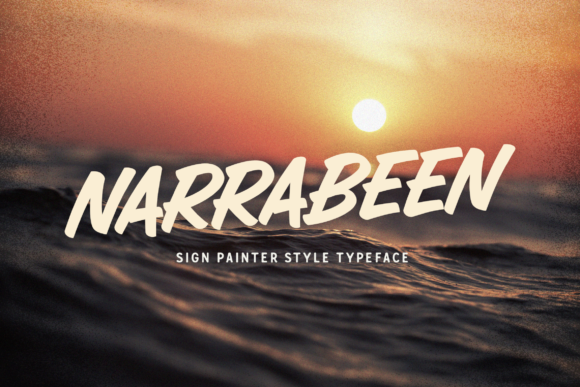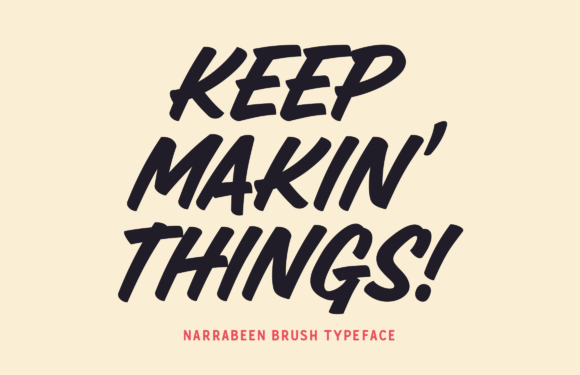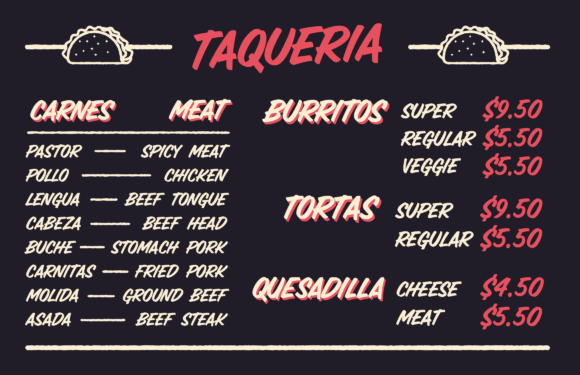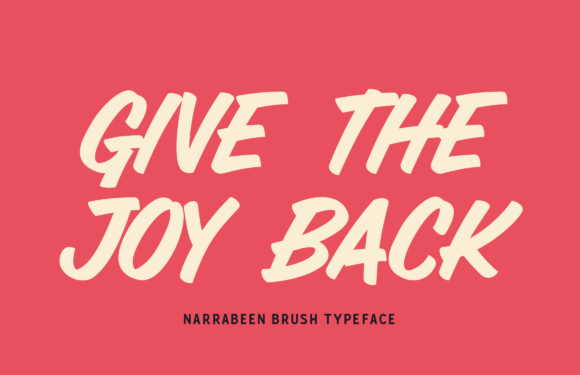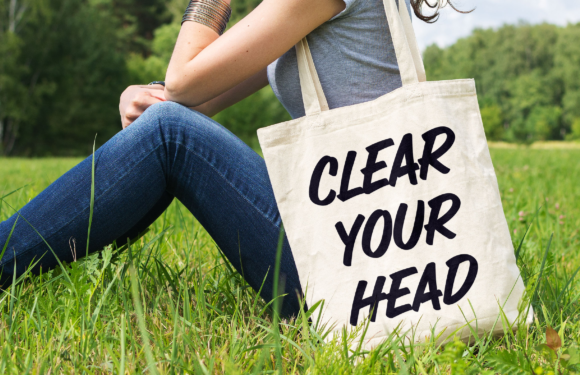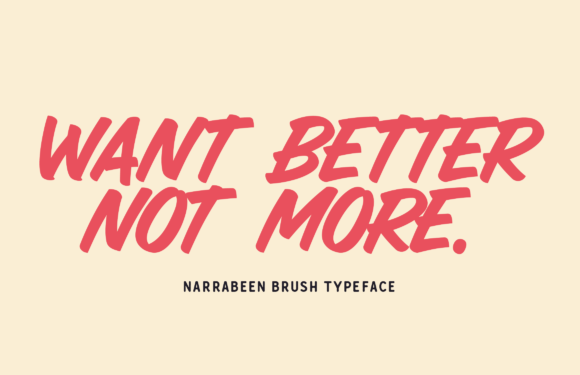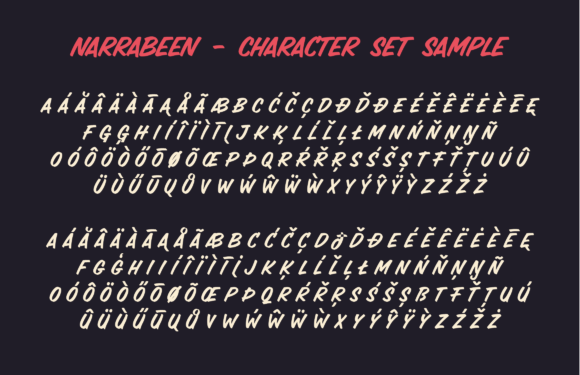
Narrabeen Font
Inspired by hand-painted signage, Narrabeen is a beautiful hand-lettered font; this font reads well and has a lot of character, so it will add a relaxed and impactful look to your designs.